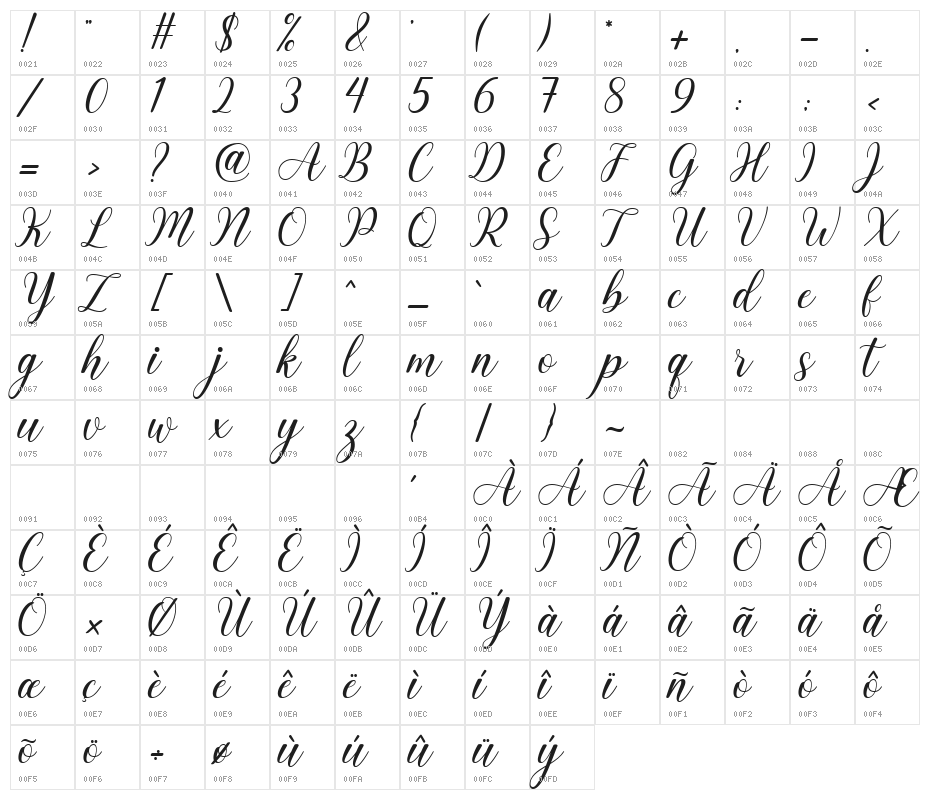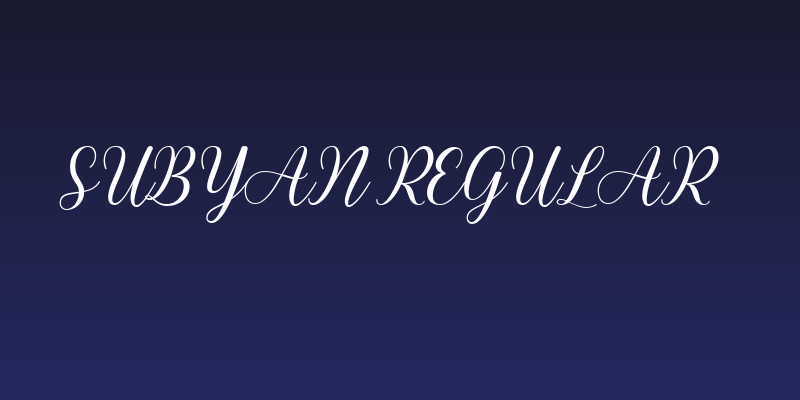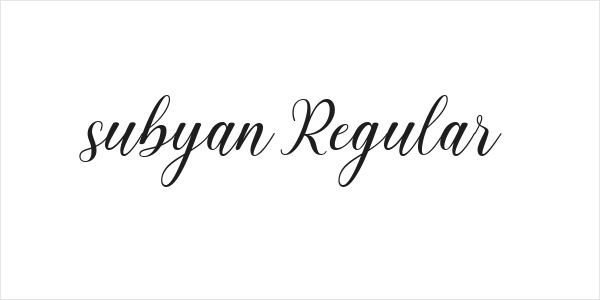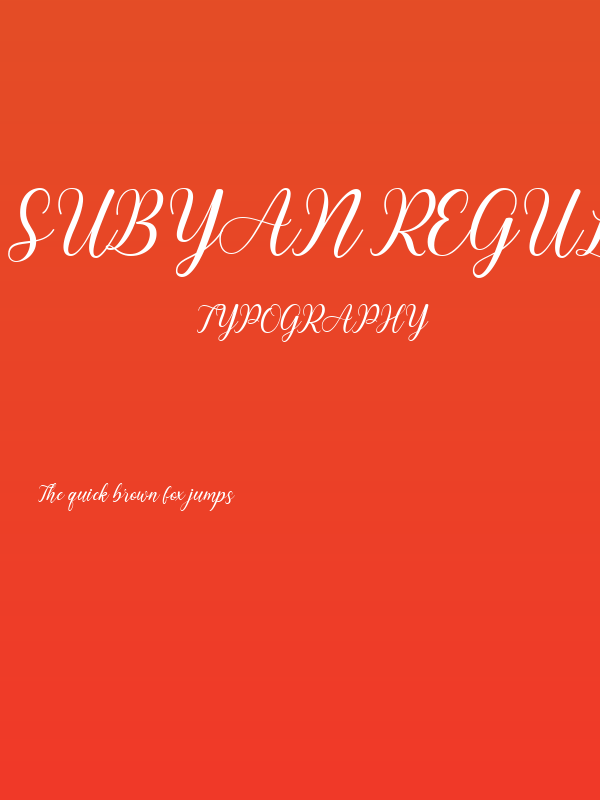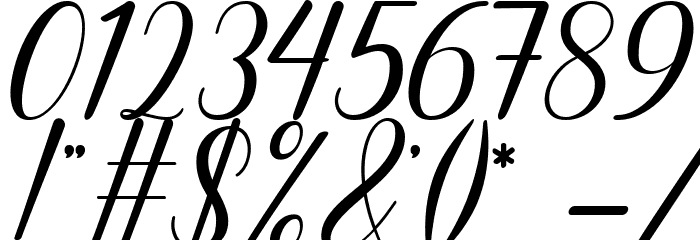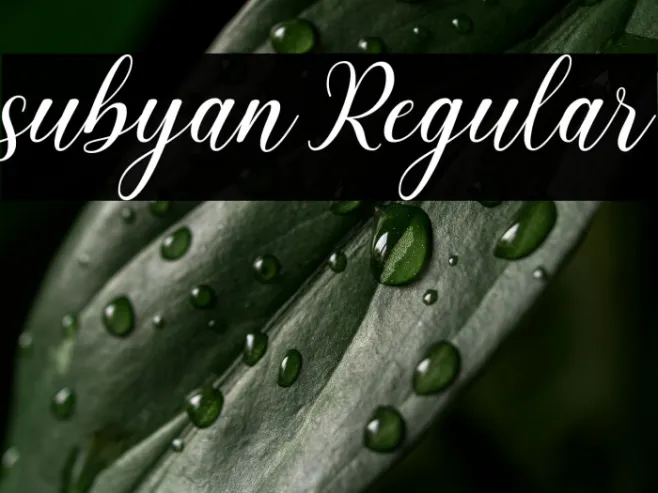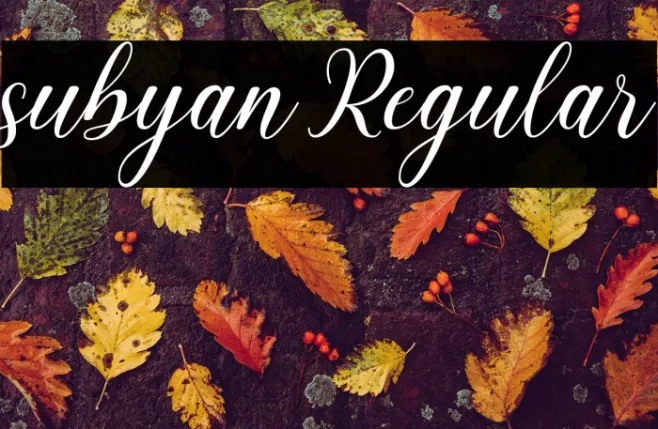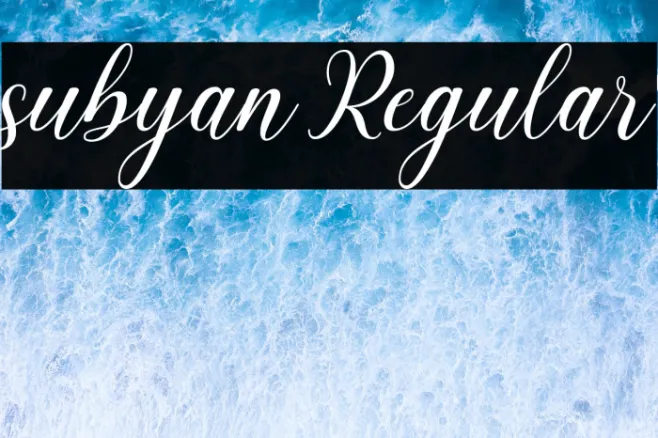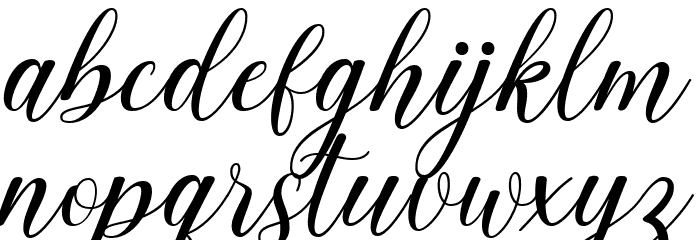
subyan Regular Font
subyan Regular Description
This font showcases a sophisticated and elegant script style, characterized by its flowing, cursive letterforms. The uppercase letters are ornate with sweeping ascenders and descenders, creating a sense of movement and grace. The lowercase letters maintain a consistent style, with smooth curves and a harmonious flow. The numerals are designed to match the script's elegance, featuring similar curves and flourishes. Special characters are integrated seamlessly, maintaining the overall aesthetic. This font is ideal for projects that require a touch of elegance and sophistication.